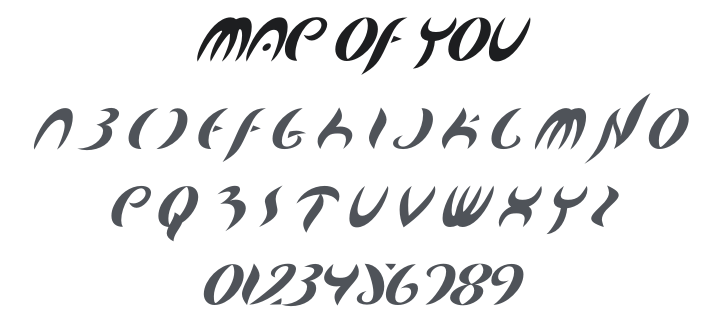
Map of You Font
About Map of You
Map of You is a bold, slanted display typeface with dramatic swooping curves and sharp scimitar-like strokes — every letterform sweeps and slashes with an alien, tribal energy that feels both ancient and intergalactic. Its sweeping italic stance gives it fierce momentum. Perfect for fantasy game titles, sci-fi tribal branding, heavy metal posters, tattoo-inspired designs, and any headline needing wild, otherworldly ferocity.